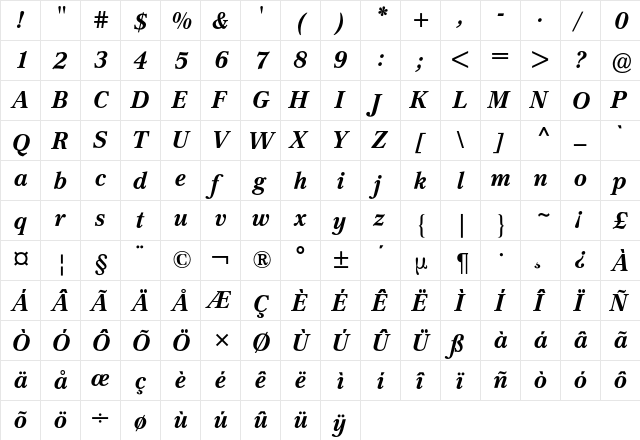
Cremona BQ Regular
Design Context for Cremona BQ Typeface
Cremona BQ takes a measured approach to typography — its balanced proportions and neutral character make it a reliable workhorse for both digital and print work.
Pro Tip: Use Cremona BQ in both headline and body roles to test its range before committing to a single application.